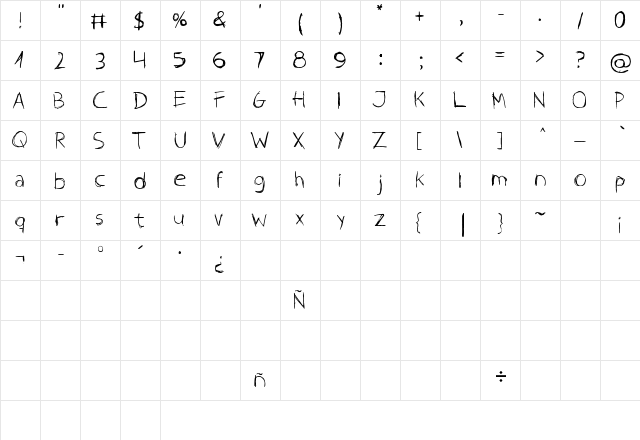
On The Wagon Regular
Design Context for On The Wagon Typeface
On The Wagon is a composed and adaptable typeface that performs quietly and consistently across a wide range of design contexts.